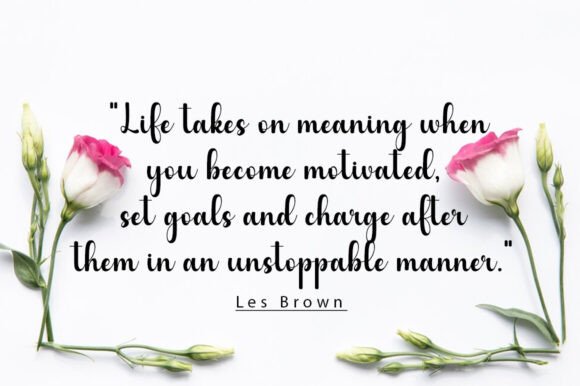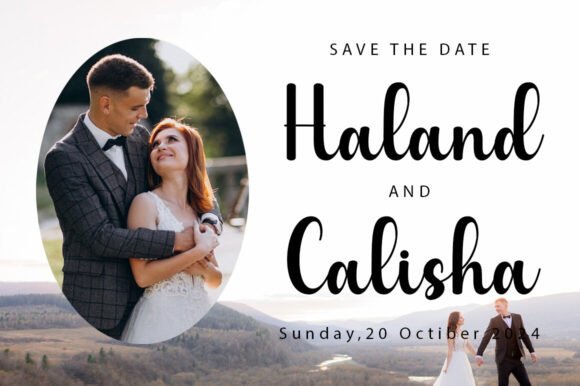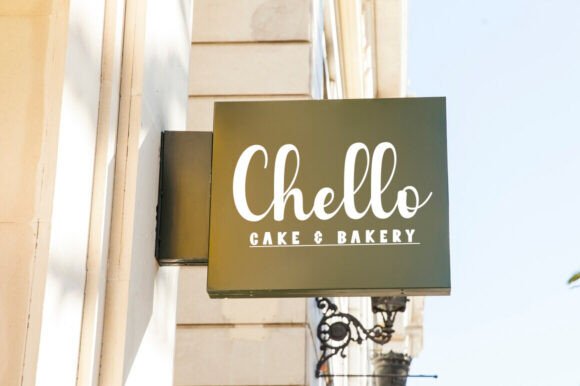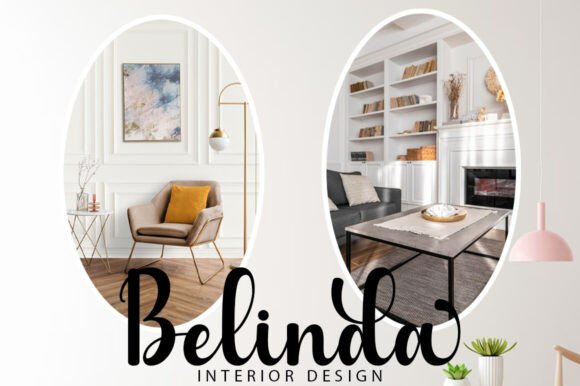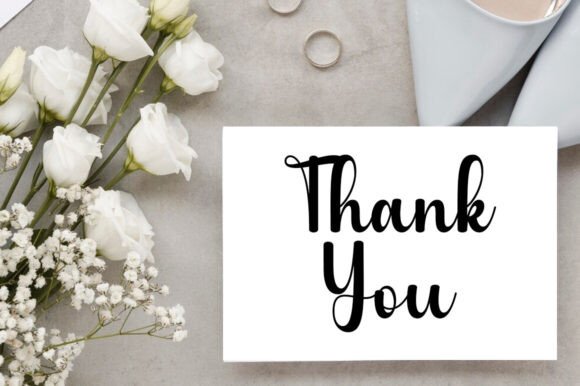
Discover the Charm of Angela Font: A Lovely Handwritten Script Font
Are you on the hunt for a font that exudes sweetness and elegance? Look no further than Angela Font, a beautiful handwritten script font that’s perfect for a wide range of design projects. With its gentle and charming appearance, Angela Font is sure to capture the hearts of designers and crafters alike. In this article, we’ll dive into the world of Angela Font, exploring its features, benefits, and uses, as well as provide tips on how to make the most of this lovely font.
What is Angela Font?
Angela Font is a stunning handwritten script font that’s designed to add a touch of warmth and personality to your designs. This lovely font is perfect for creating eye-catching logos, branding, and quotes that require a personal and human touch. With its flowing curves and delicate lines, Angela Font is sure to make your designs stand out from the crowd.
Key Features of Angela Font
So, what makes Angela Font so special? Here are some of its key features:
• PUA Encoded: Angela Font is PUA (Private Use Area) encoded, which means you can easily access all of the glyphs, swashes, and ligatures. This makes it easy to customize your designs and add a personal touch.
• Handwritten Script: Angela Font is a handwritten script font that’s designed to look like it was written with a pen. This gives it a personal and organic feel that’s perfect for a wide range of design projects.
• Versatile: Angela Font is incredibly versatile and can be used for a wide range of design projects, from logos and branding to quotes and social media graphics.
Benefits of Using Angela Font
So, why should you choose Angela Font for your next design project? Here are some of the benefits of using this lovely font:
• Easily Readable: Angela Font is incredibly easy to read, making it perfect for designs that require a clear and concise message.
• Highly Customizable: With its PUA encoding, Angela Font is highly customizable, allowing you to add your own personal touch to your designs.
• Unique and Creative: Angela Font is a unique and creative font that’s sure to make your designs stand out from the crowd.
Uses for Angela Font
Angela Font is incredibly versatile and can be used for a wide range of design projects, including:
• Logos and Branding: Angela Font is perfect for creating eye-catching logos and branding that require a personal and human touch.
• Quotes and Social Media Graphics: Angela Font is great for creating inspirational quotes and social media graphics that require a clear and concise message.
• Wedding and Party Decor: Angela Font is perfect for creating beautiful wedding and party decor, including invitations, programs, and signage.
Tips for Using Angela Font
Here are some tips for using Angela Font in your designs:
• Pair with Other Fonts: Angela Font pairs well with other fonts, including sans-serif and serif fonts. Experiment with different combinations to find the perfect look for your design.
• Use Swashes and Ligatures: Angela Font’s PUA encoding allows you to access a range of swashes and ligatures. Use these to add a personal touch to your designs.
• Experiment with Colors: Angela Font looks great in a range of colors, from soft pastels to bold and bright hues. Experiment with different colors to find the perfect look for your design.
Angela Font is a lovely handwritten script font that’s perfect for designers and crafters looking to add a touch of warmth and personality to their designs. With its PUA encoding, gentle appearance, and versatility, Angela Font is sure to become a favorite in your font collection. Whether you’re creating logos and branding, quotes and social media graphics, or wedding and party decor, Angela Font is the perfect choice.